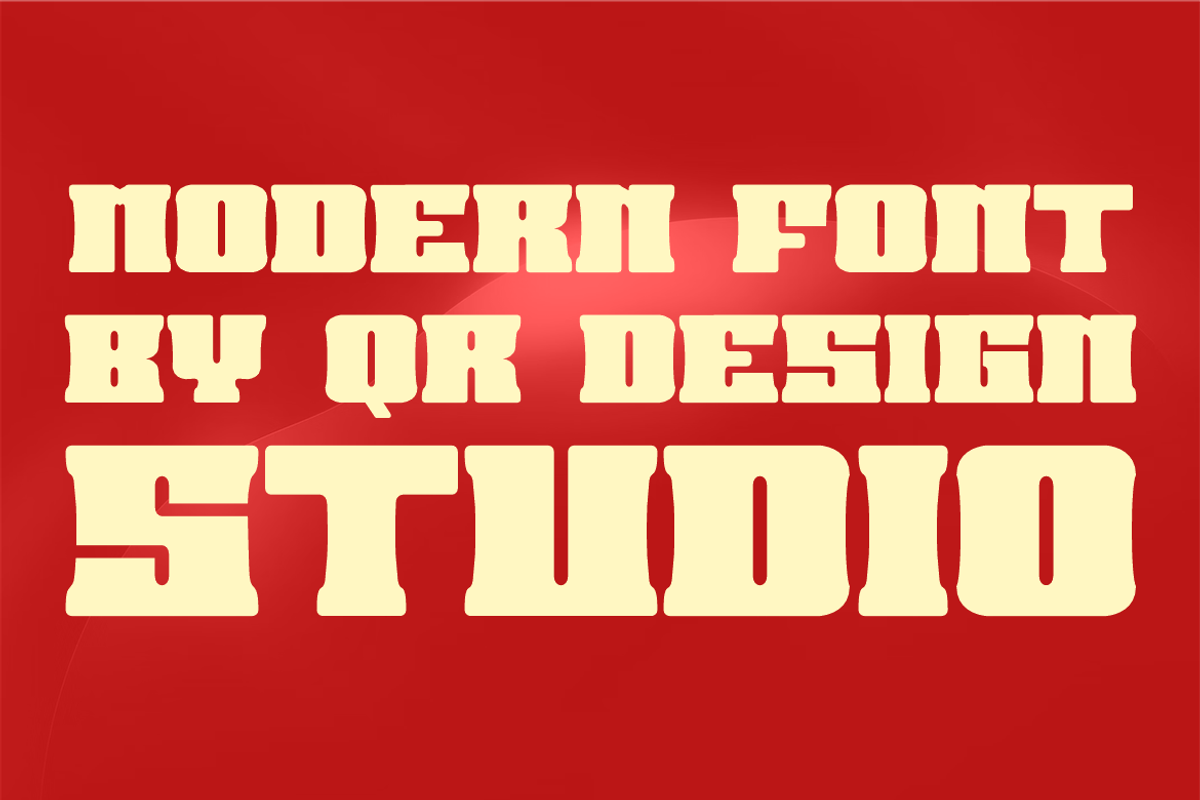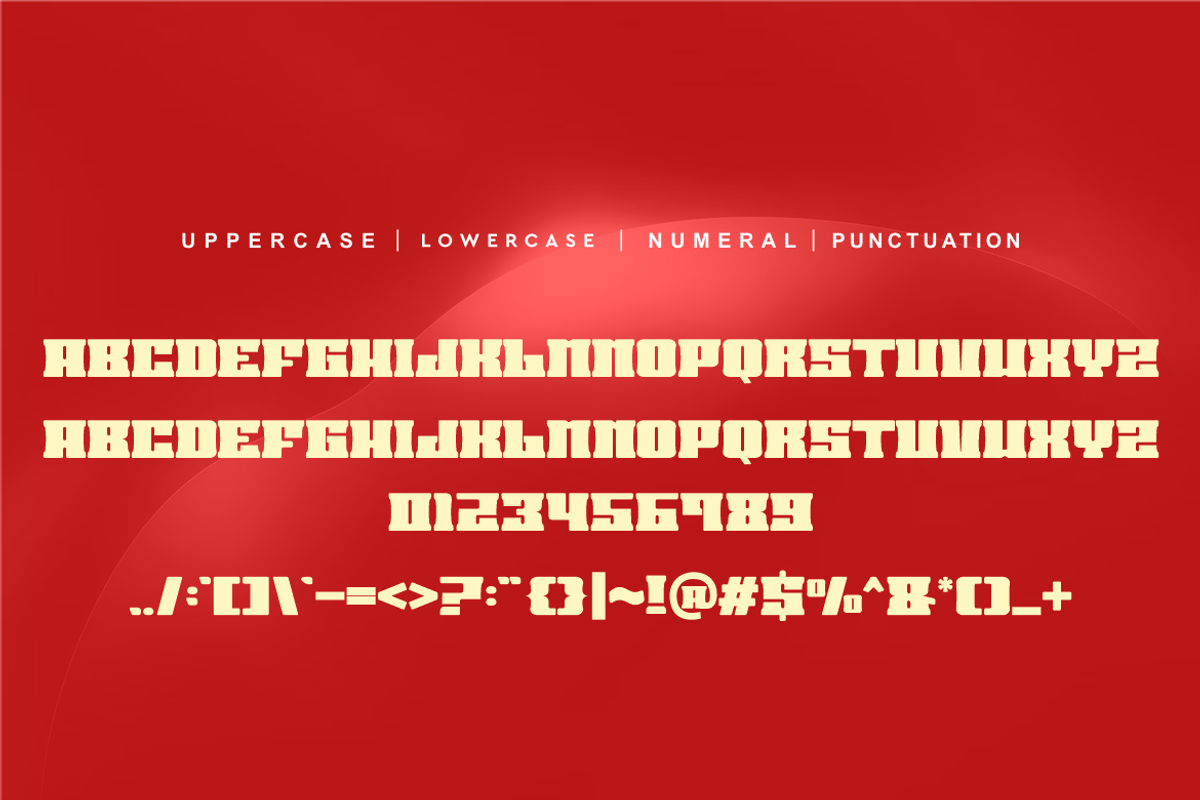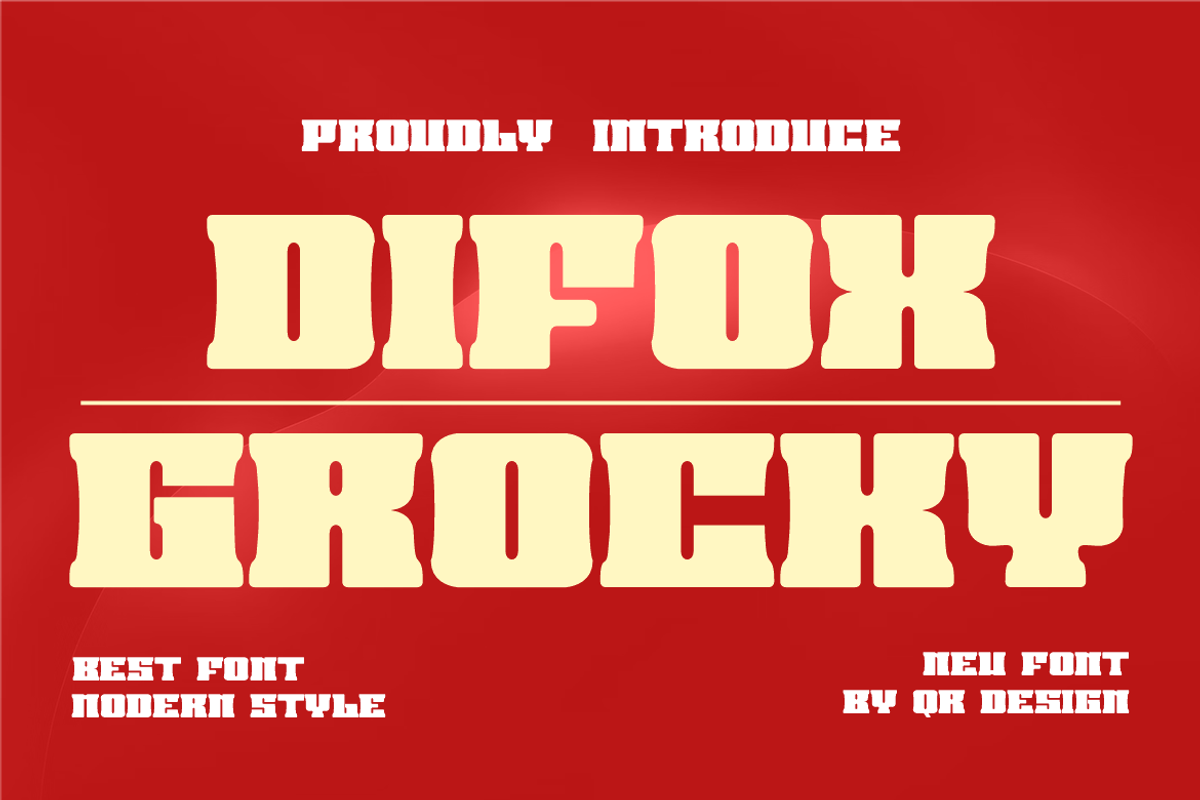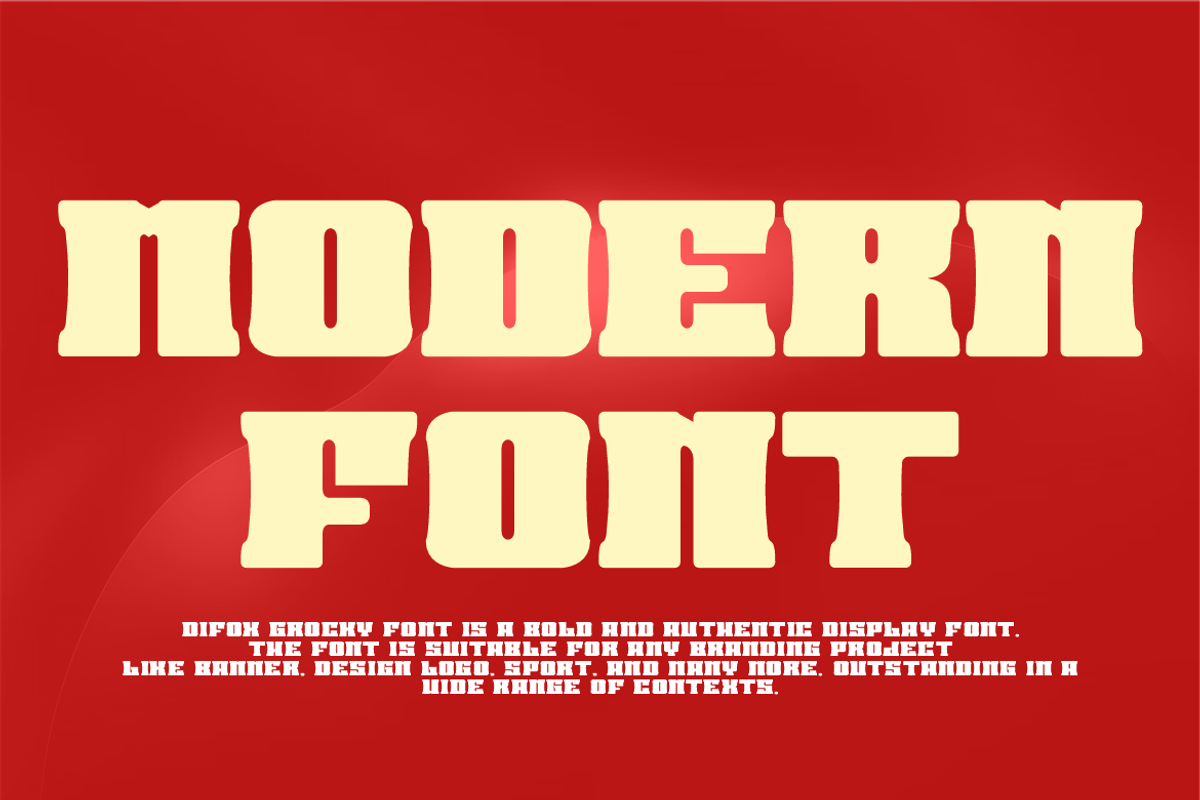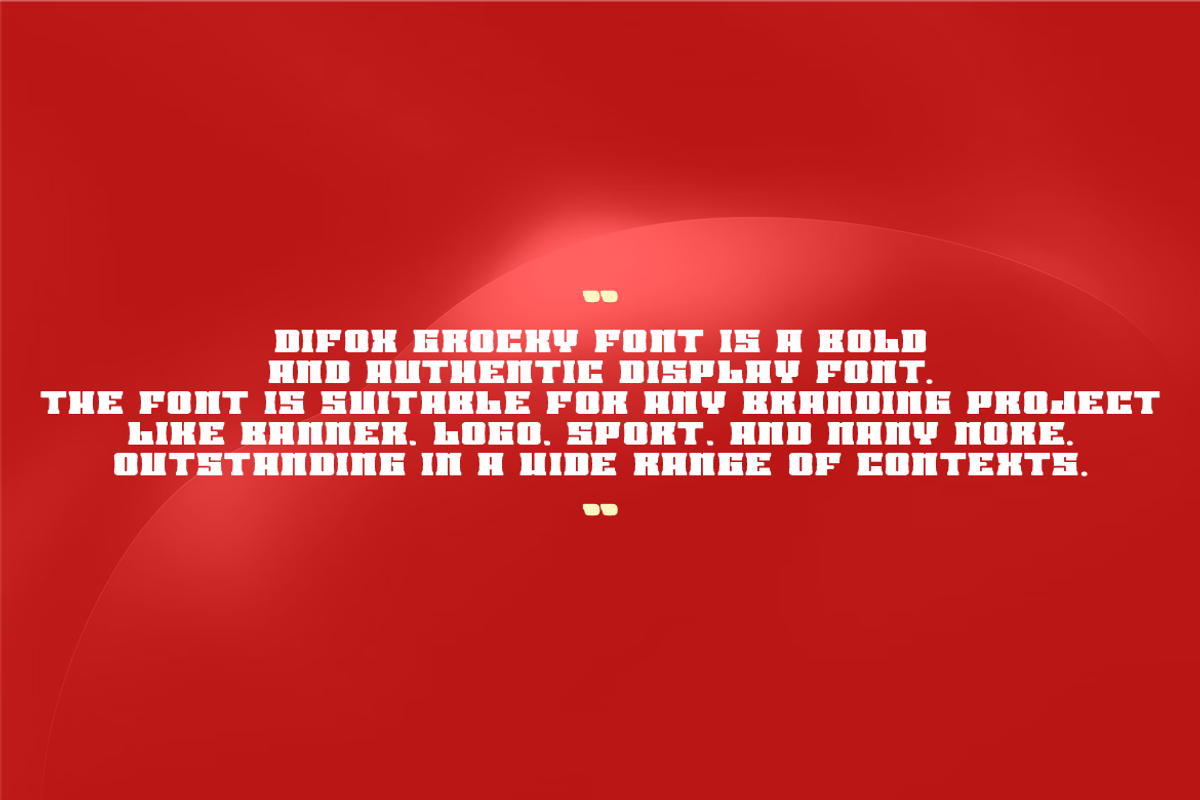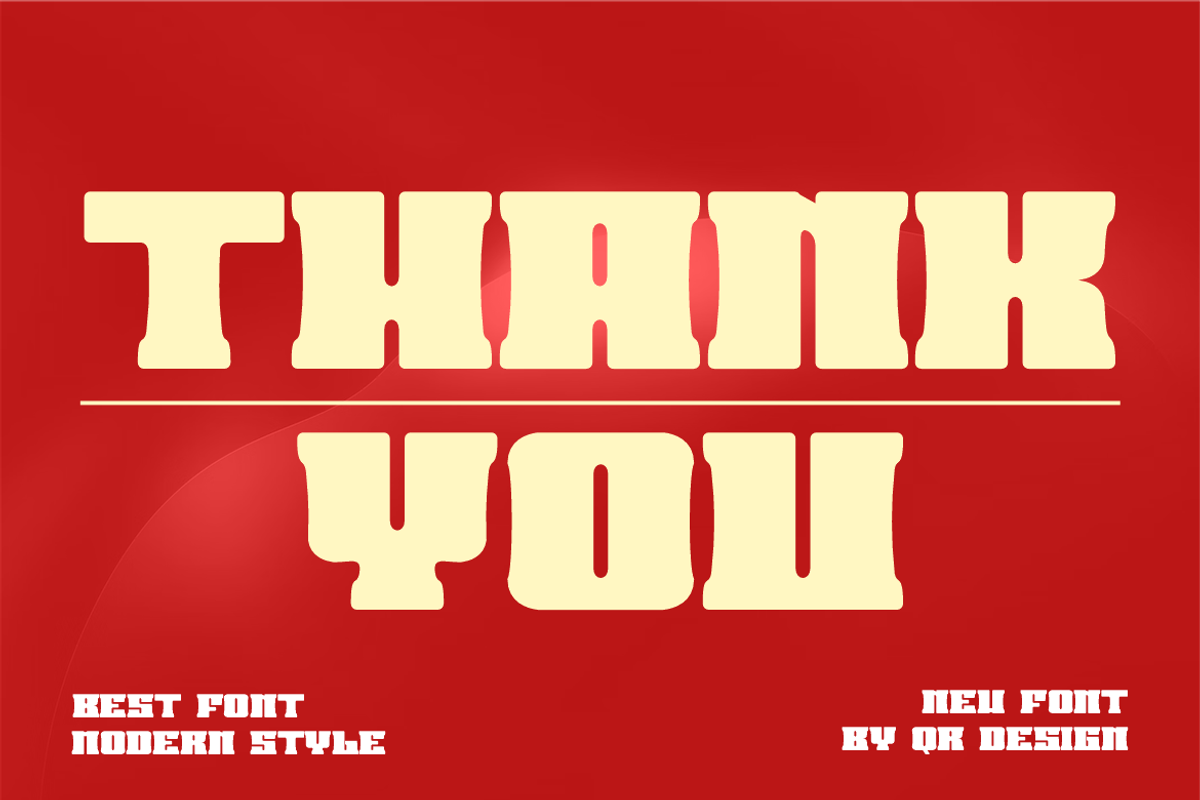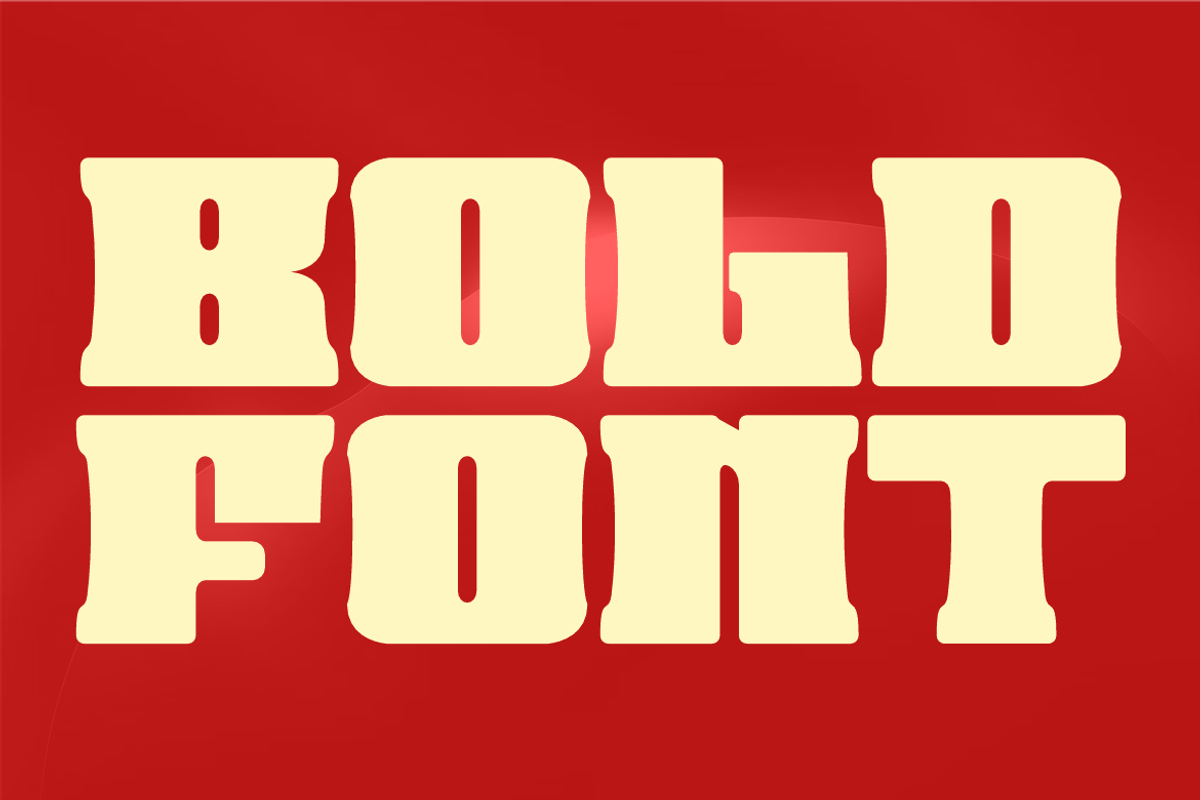
Difox Grocky
Difox Grocky Font is a bold and authentic display font. The font is suitable for any branding project like logo, sport, and many more. Outstanding in a wide range of contexts.